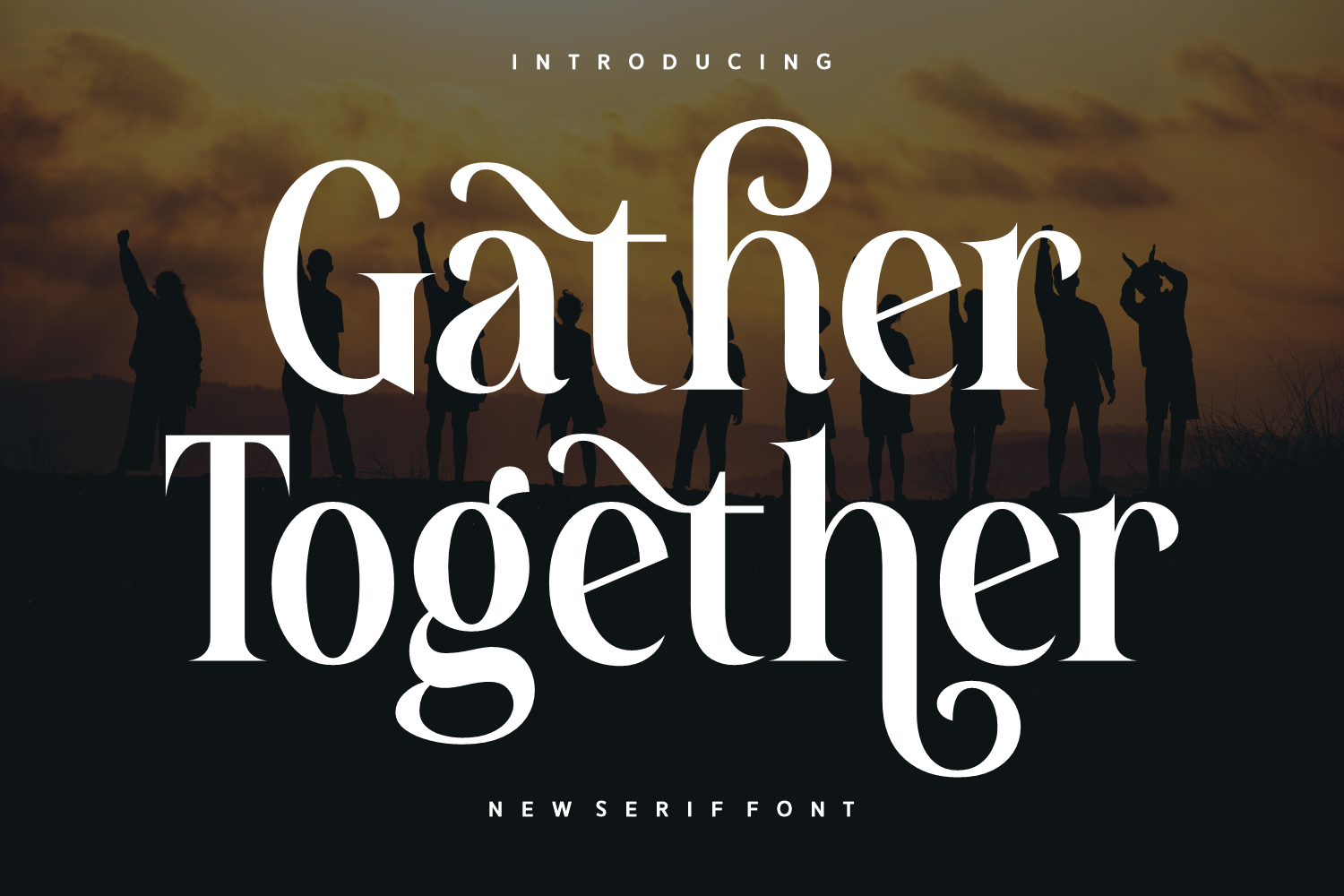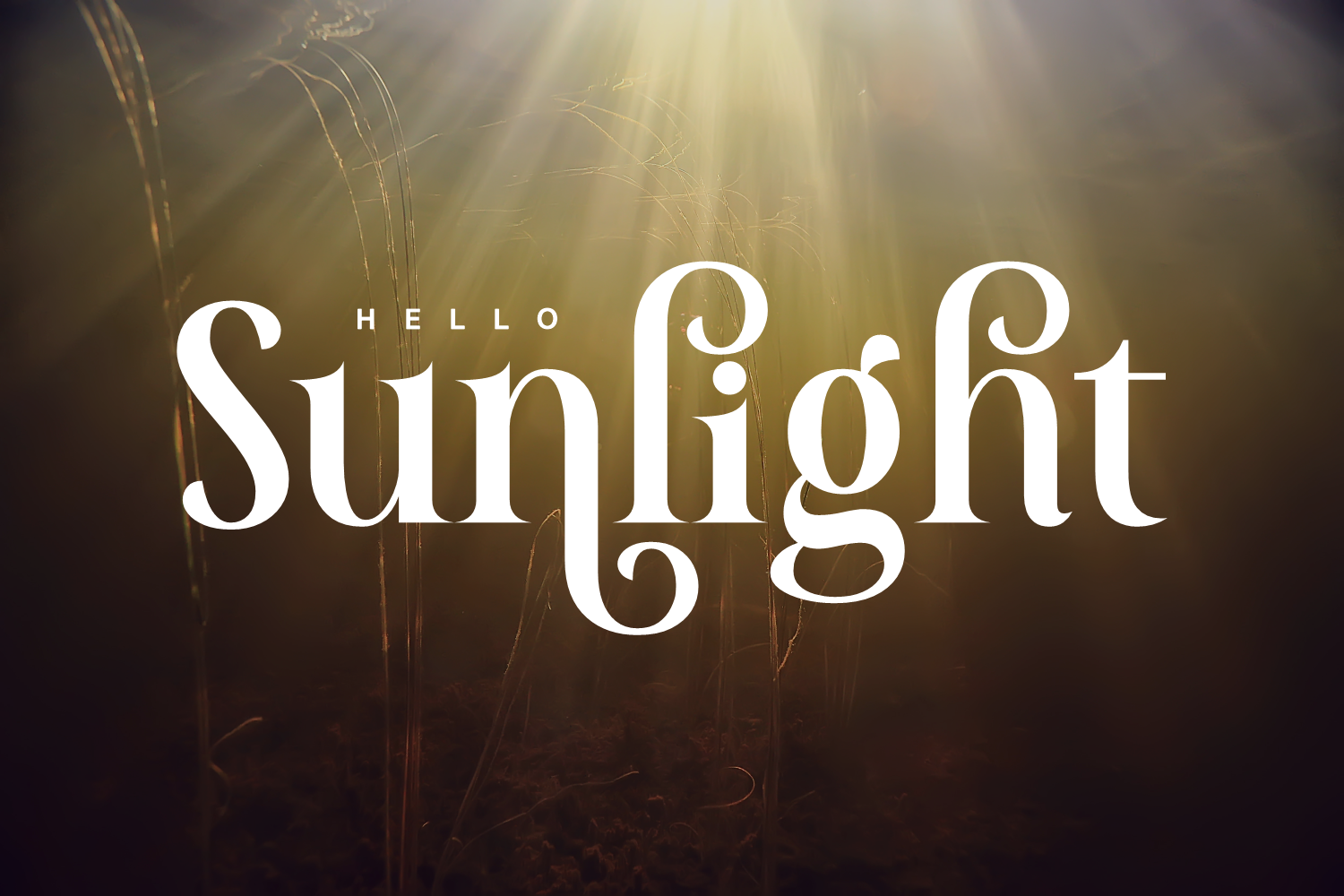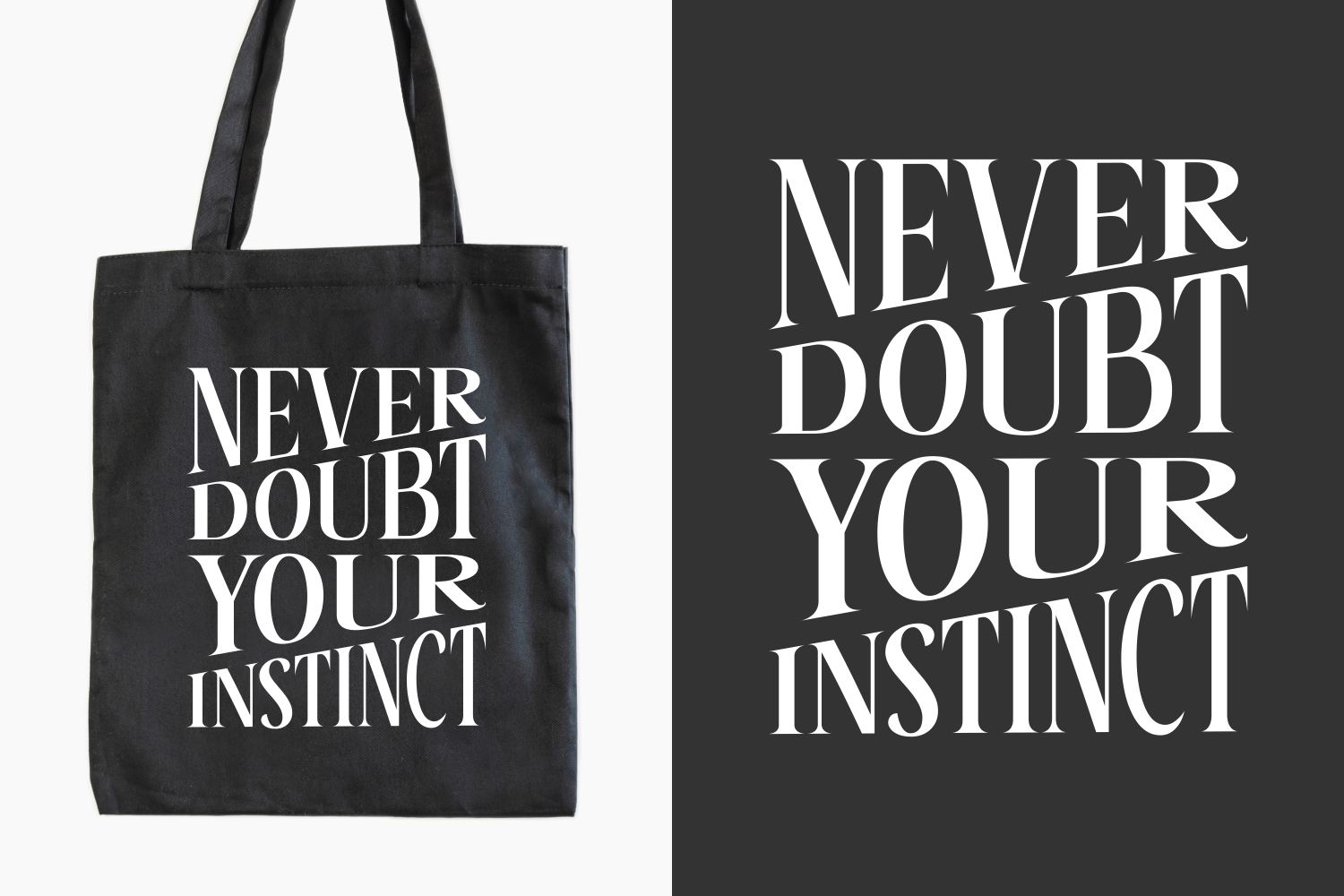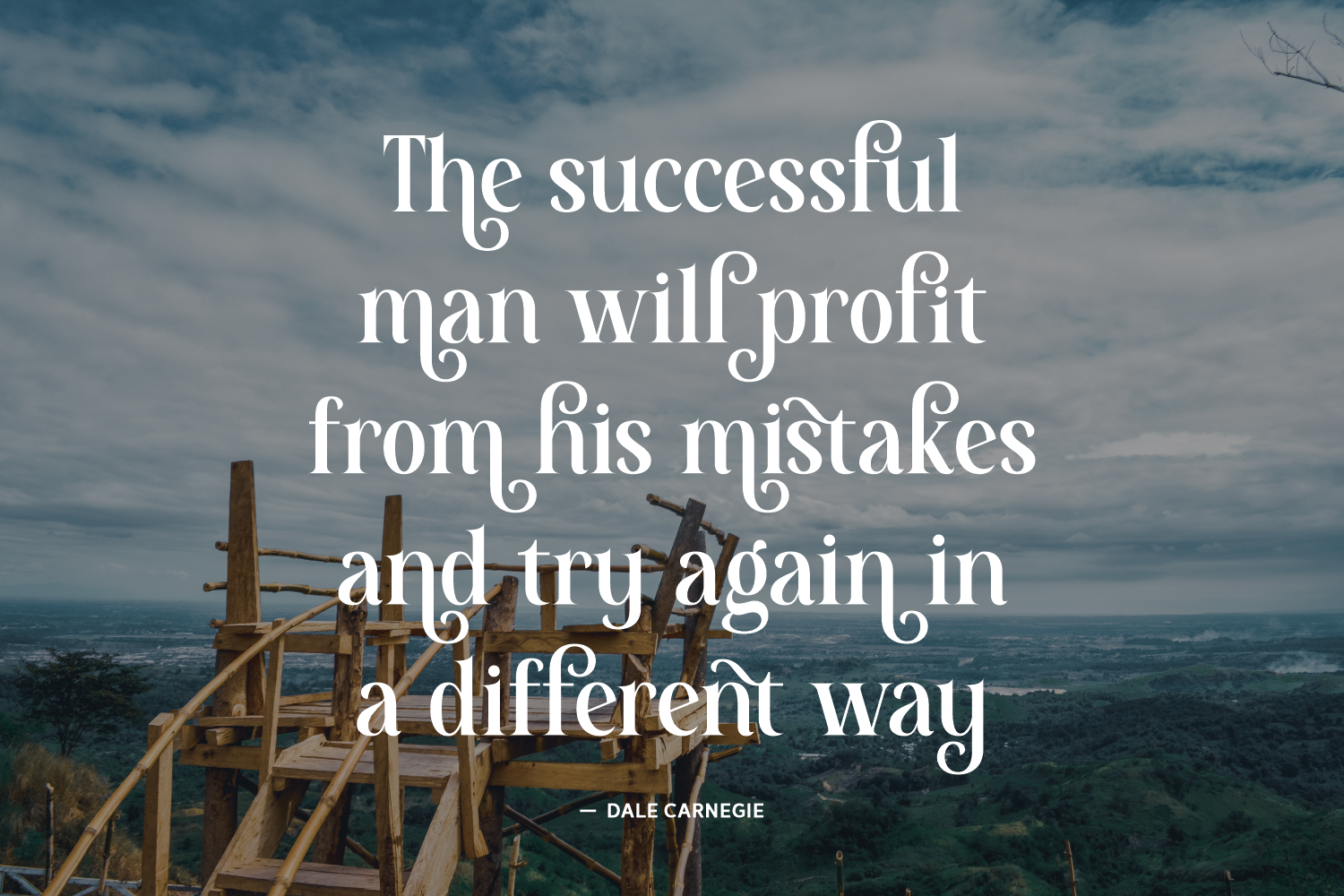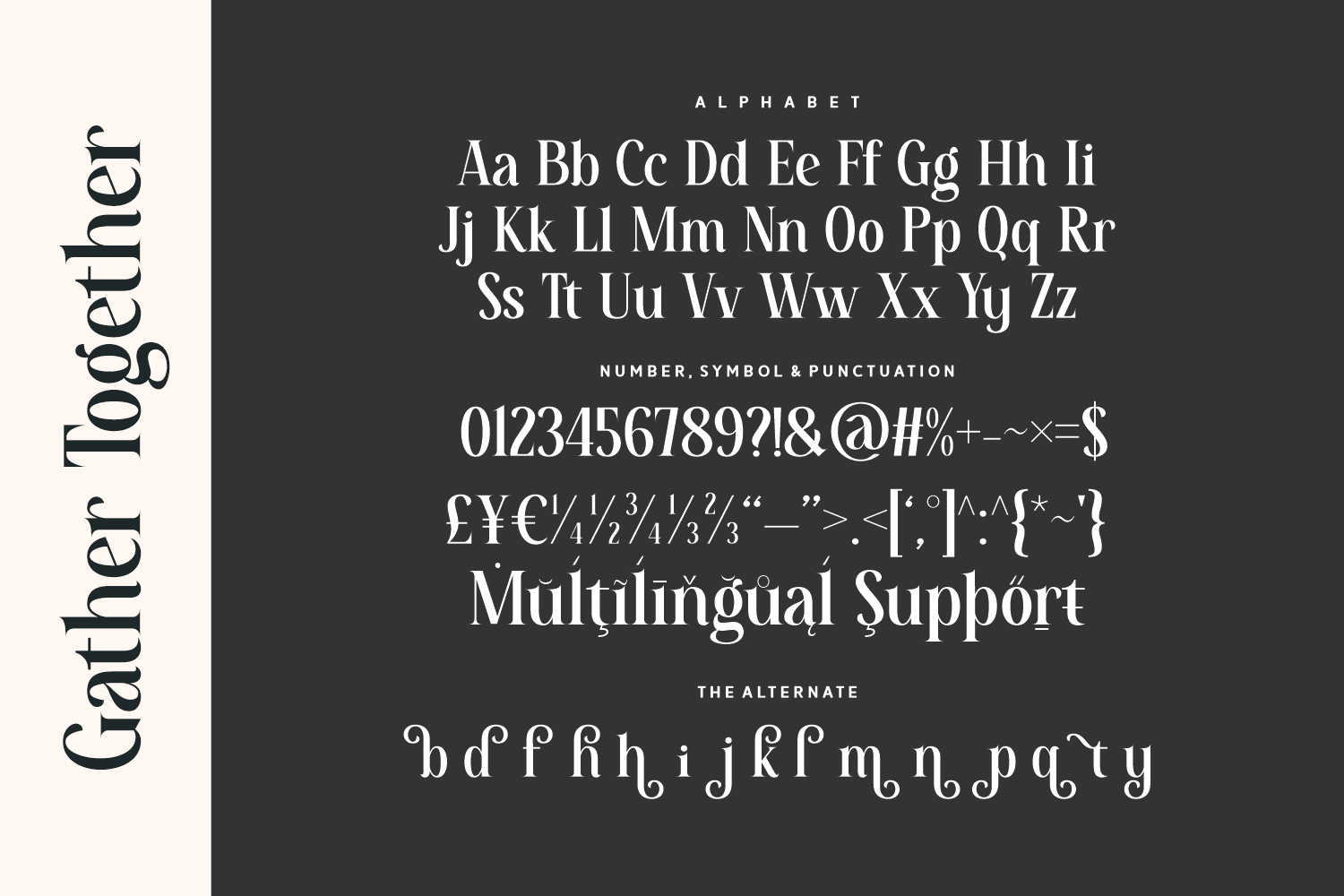
Gather Together is a warm and expressive serif font designed to capture a sense of unity, celebration, and charm. With playful curves and ornate swashes, it’s perfect for invitations, festive campaigns, community events, and heartfelt branding. The personality of each letter feels handcrafted, joyful, and inviting.
Gather Together